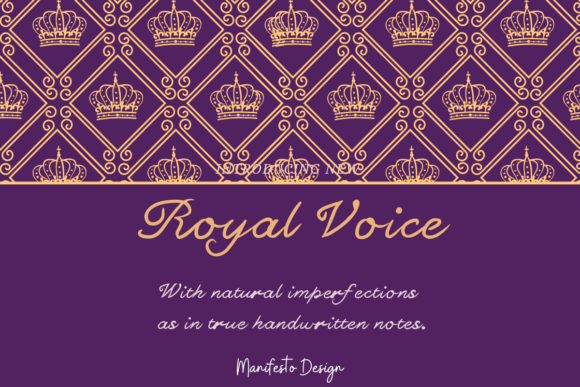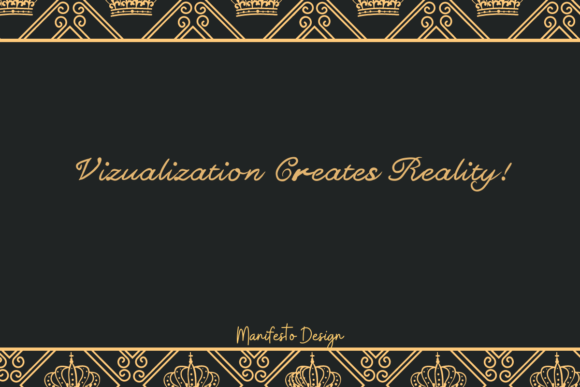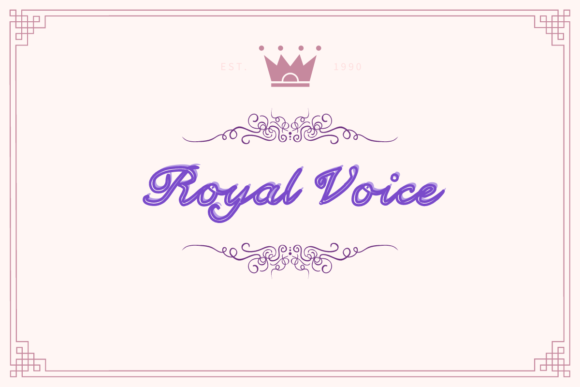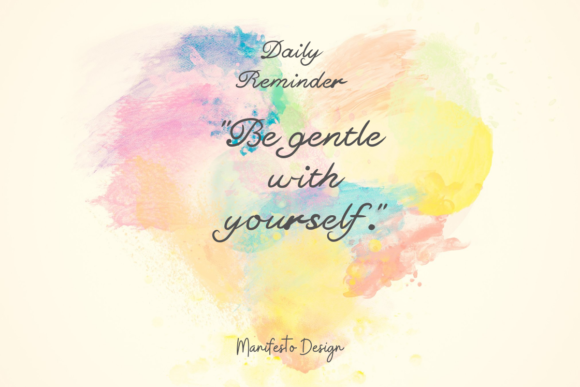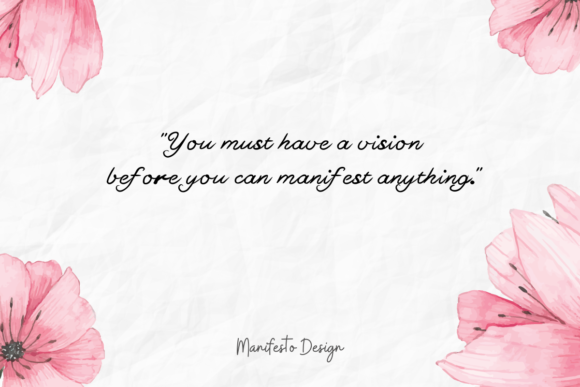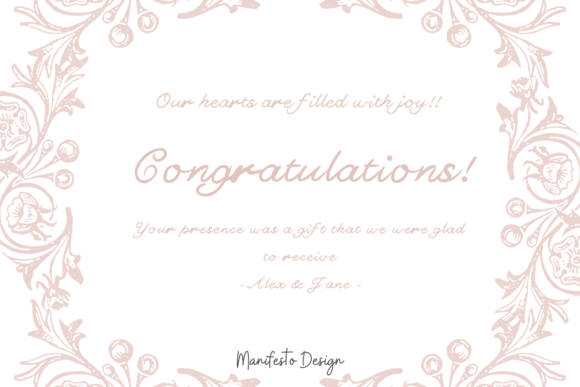
Introduction to Royal Voice Font
As a designer, have you ever found yourself stuck in a creative rut, searching for the perfect font to elevate your latest project? I know I have. But then, one day, I stumbled upon the Royal Voice Font, and everything changed. This adorable script font has a way of adding a touch of elegance and sophistication to even the most mundane designs.
With its delicate strokes and whimsical feel, the Royal Voice Font is a game-changer for any creative project. Whether you’re working on a free download, a branding project, or a label design, this high-quality font is sure to impress. And the best part? It’s incredibly versatile, making it a valuable addition to any designer’s toolkit.
From transparent backgrounds to intricate illustrations, the Royal Voice Font is the perfect design resource for any project that requires a touch of royal flair. So why settle for a generic font when you can add a little luxury to your designs with the Royal Voice Font?
Key Features of Royal Voice Font
- High-quality font with elegant, sophisticated design suitable for creative projects
- Features a transparent background, making it easy to layer over images or other design elements
- High-resolution font, ideal for printing or using in high-resolution digital designs (up to 300 DPI)
- Unique characteristics include intricate details and ornate flourishes, adding a touch of luxury to any design project
- Perfect for designers working on high-end creative projects, such as luxury branding, invitations, or wedding stationery
Honest Review: Royal Voice Font
I recently stumbled upon the Royal Voice Font, and I must say, it’s a beautiful addition to any design project. As a designer, I’m always on the lookout for high-quality fonts that can elevate my creative work. In this review, I’ll share my honest thoughts on what works well and what might need improvement.
- High-Quality Design: The font features a regal and elegant design that’s perfect for creating a sophisticated atmosphere in your design project.
- Transparent Background: The transparent background allows for seamless integration with your design, giving you more creative freedom.
- Limited Character Set: The Royal Voice Font has a limited character set, which might not be suitable for extensive text-based projects.
- No Bold or Italic Options: The font only comes in a single style, which might limit its versatility in certain design scenarios.
Overall, the Royal Voice Font is a lovely addition to any design resource collection. While it has some limitations, its high-quality design and transparent background make it a great choice for designers working on creative projects. I’d definitely recommend giving it a try, especially if you’re looking for a free, elegant font to enhance your design work.
Tips for Getting the Most Out of Royal Voice Font
To get the most out of the Royal Voice Font, use it in conjunction with other design elements, such as images or graphics, to create a cohesive and visually appealing design.
The Royal Voice Font is ideal for use in various creative projects, including:
Corporate branding and marketing materials
Social media graphics and posts